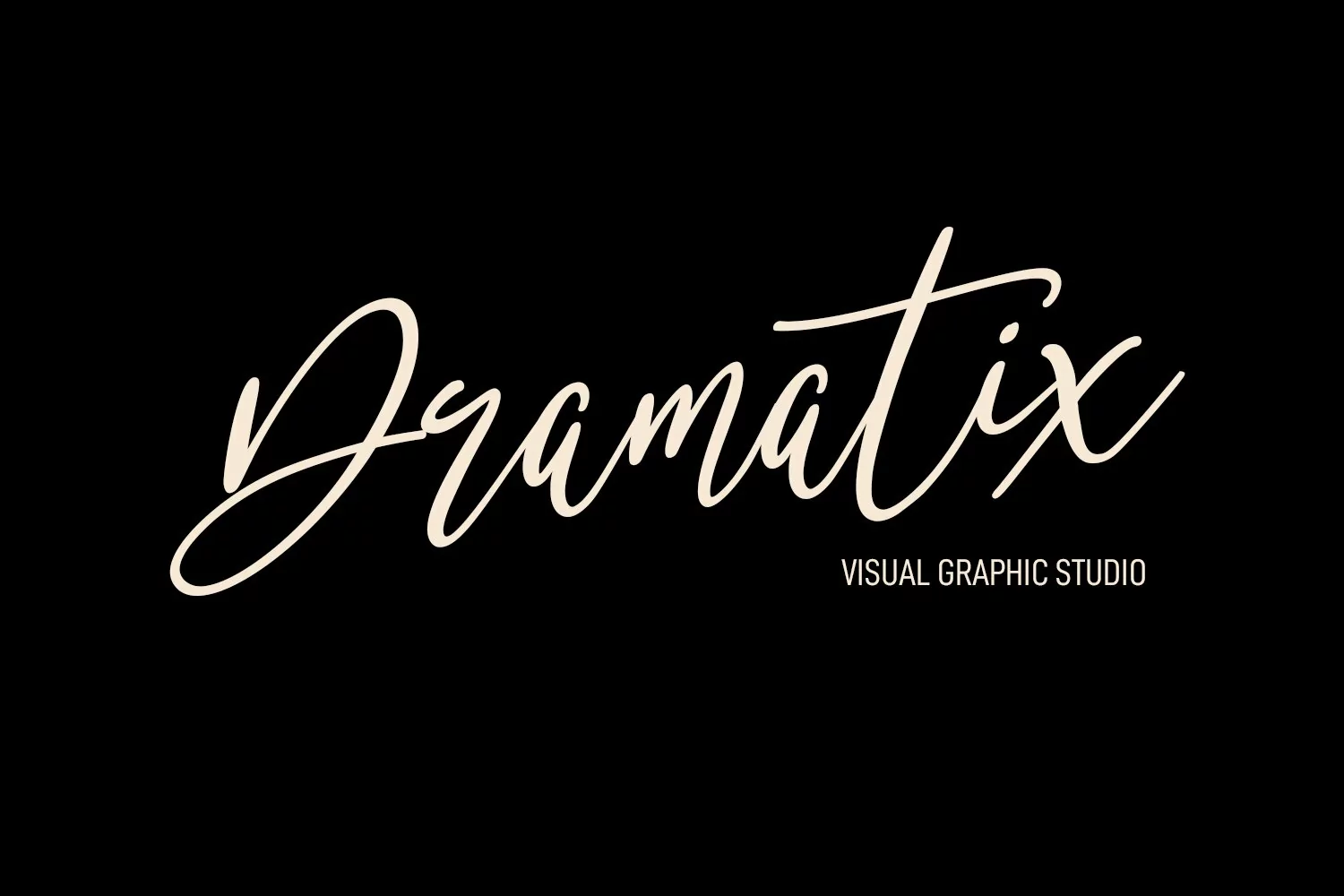
Neillgates is a Casual script font. With lregular contrast stroke, slanted and fun character with a bit of ligatures. To give you an extra creative work. Neillgates font support multilingual more than 100+ language. This font is good for logo design, Social media, Movie Titles, Books Titles, a short text even a long text letter and good for your secondary text font with sans or serif. Make a stunning work with Neillgates font.